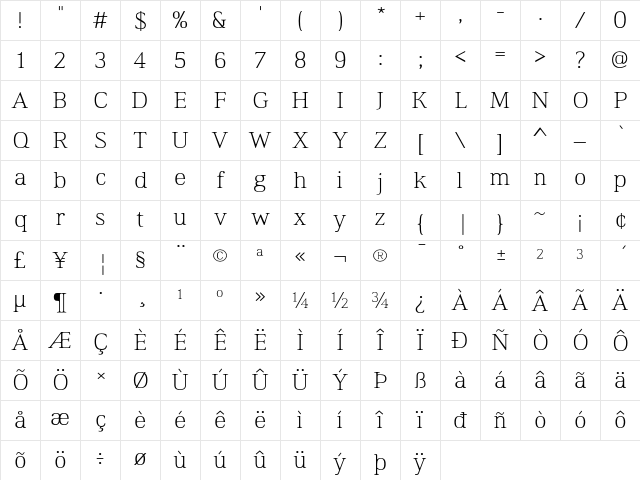
Ethos Expanded Thin Free Font
Ethos Expanded Thin
Style: Thin
Foundry: FONTS WITH LOVE
Designer: Florian Klauer
Complete Ethos Expanded Thin glyph index. Displaying only characters natively supported by Ethos Expanded Thin font.
Design Context for Ethos Expanded
Ethos Expanded is a composed and adaptable typeface that performs quietly and consistently across a wide range of design contexts. Its slender proportions lend an understated elegance to any composition.